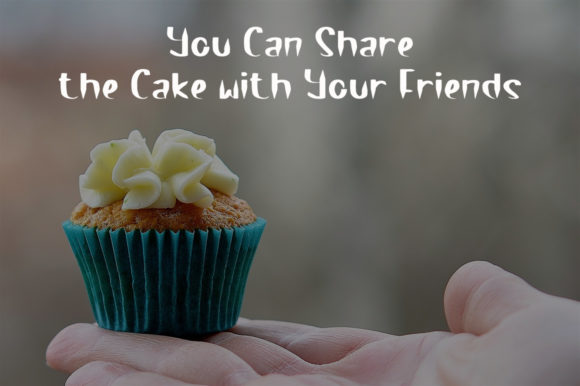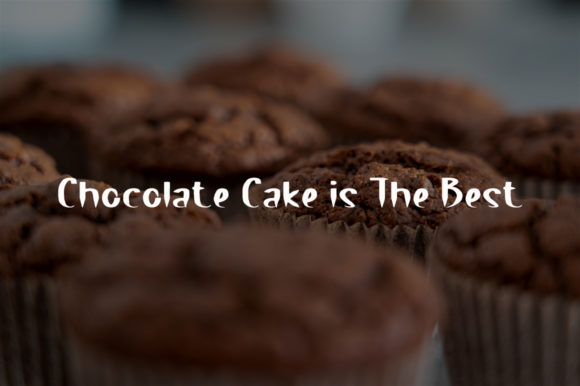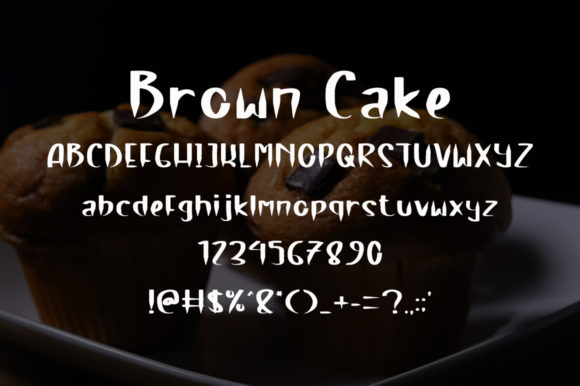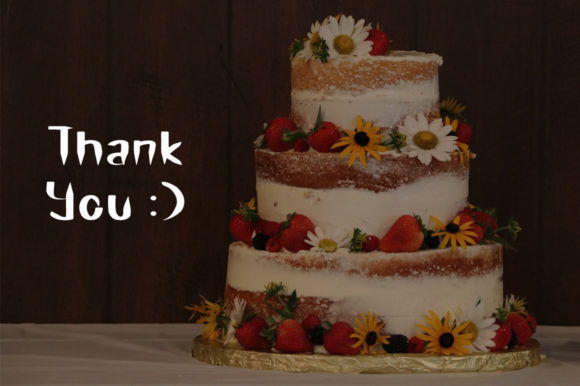
Brown Cake Font: The Ultimate Guide to this Deliciously Unique Handwritten Font
Are you tired of using the same old fonts in your designs? Look no further than the Brown Cake font! This incredibly unique and interesting handwritten font is sure to make your designs stand out from the crowd. With its versatile style and wide range of uses, Brown Cake is the perfect addition to any designer’s toolkit.
What is Brown Cake Font?
Brown Cake is a beautifully crafted handwritten font that is perfect for adding a touch of personality to your designs. Its unique and quirky style is reminiscent of a homemade cake, with all the imperfections and charm that come with it. The font is incredibly versatile, making it suitable for a wide range of design projects, from wedding invitations and branding materials to social media graphics and more.
Features of Brown Cake Font
So, what makes Brown Cake font so special? Here are just a few of its key features:
- Unique and Handwritten Style: Brown Cake font is a truly one-of-a-kind font that is sure to make your designs stand out. Its handwritten style is full of character and personality, making it perfect for adding a touch of warmth and personality to your designs.
- Versatile: Whether you’re designing a wedding invitation, a logo, or a social media graphic, Brown Cake font is up to the task. Its versatile style makes it suitable for a wide range of design projects.
- Easy to Read: Despite its unique style, Brown Cake font is incredibly easy to read, making it perfect for use in body text as well as headings and titles.
- High-Quality: Brown Cake font is a high-quality font that is designed to look great in any design project. Its crisp and clean lines ensure that it will look great at any size.
Uses for Brown Cake Font
So, what can you use Brown Cake font for? The possibilities are endless! Here are just a few ideas to get you started:
- Wedding Invitations: Brown Cake font is perfect for wedding invitations, with its elegant and sophisticated style making it ideal for formal and informal weddings alike.
- Branding Materials: Use Brown Cake font to add a touch of personality to your branding materials, such as business cards, letterheads, and more.
- Social Media Graphics: Brown Cake font is perfect for social media graphics, with its bold and eye-catching style making it sure to grab attention.
- Signage: Use Brown Cake font to create eye-catching signage for your business or event.
Tips for Using Brown Cake Font
Here are a few tips for getting the most out of Brown Cake font:
- Use it Sparingly: While Brown Cake font is incredibly versatile, it’s best to use it sparingly to avoid overwhelming your design. Use it for headings and titles, and pair it with a simpler font for body text.
- Experiment with Colors: Brown Cake font looks great in a range of colors, so don’t be afraid to experiment and find the perfect color for your design.
- Pair it with Other Fonts: Brown Cake font pairs well with a range of other fonts, so don’t be afraid to get creative and try out different combinations.
In conclusion, Brown Cake font is an incredibly unique and interesting handwritten font that is sure to make your designs stand out from the crowd. With its versatile style and wide range of uses, it’s the perfect addition to any designer’s toolkit. Whether you’re designing a wedding invitation, a logo, or a social media graphic, Brown Cake font is sure to impress. So why not give it a try and see what amazing designs you can create?
So, fall in love with Brown Cake font and use it to create spectacular designs that will leave a lasting impression on your audience!